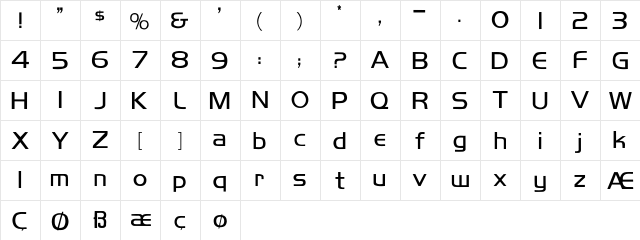
Koshgarian-Light Regular
Design Context for Koshgarian-Light Typeface
Koshgarian-Light takes a measured approach to typography — its balanced proportions and neutral character make it a reliable workhorse for both digital and print work. Its slender proportions lend an understated elegance to any composition.